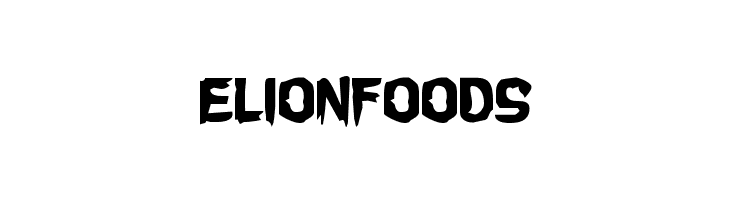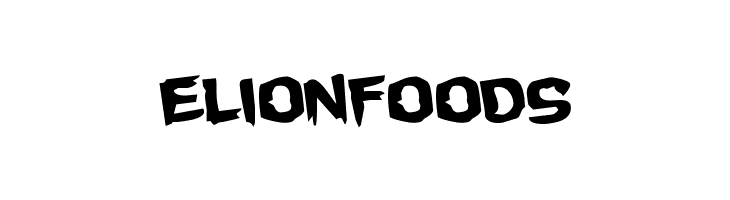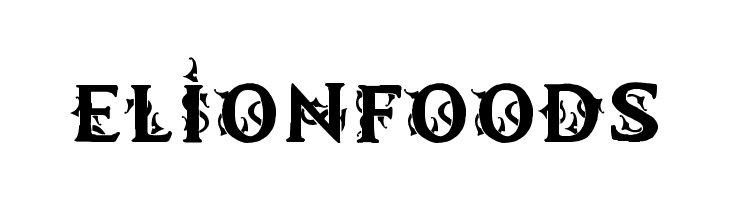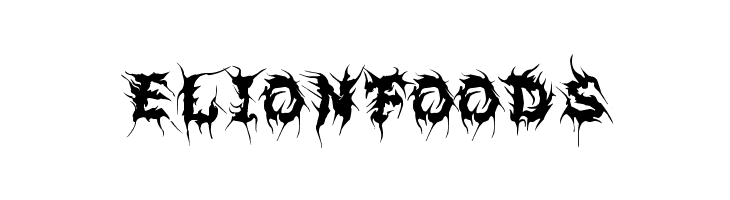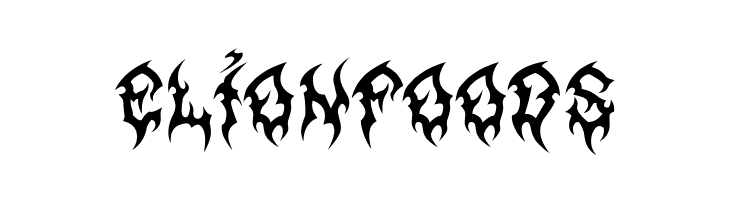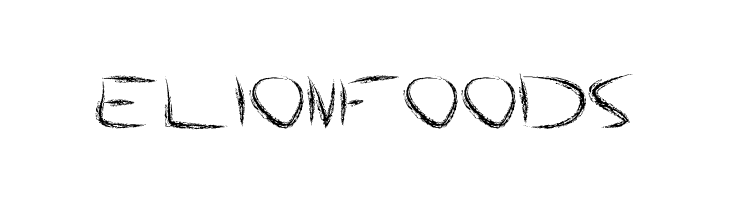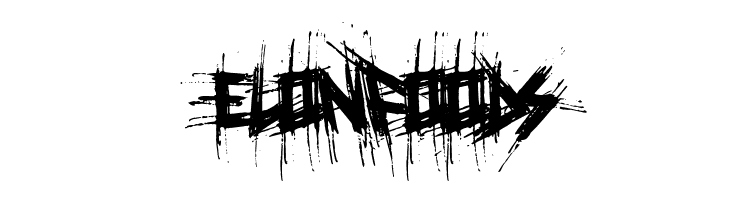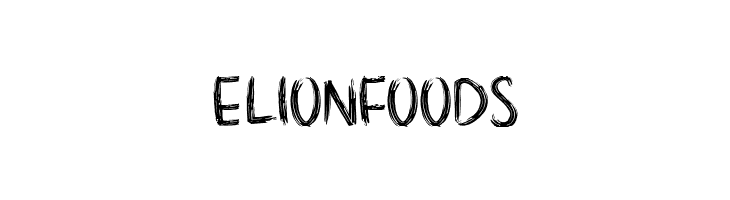
A bold, jagged, and condensed font with sharp edges for dramatic impact.
A bold, jagged font with a graffiti-inspired, energetic style.
A gothic-inspired font with thorn-like embellishments and bold, dramatic strokes.
A bold, jagged, and distressed font with a grunge aesthetic.
A bold, thorny font with a gothic, horror-inspired aesthetic.
A bold, aggressive font with sharp, jagged edges and a tribal flame-like design.
A rough, energetic font with a chalk-like, hand-drawn appearance.
A distressed, chaotic font with sharp, jagged edges and a rebellious aesthetic.
A jagged, horror-themed font with sharp, irregular strokes.
A bold, jagged font with a hand-drawn, edgy style.